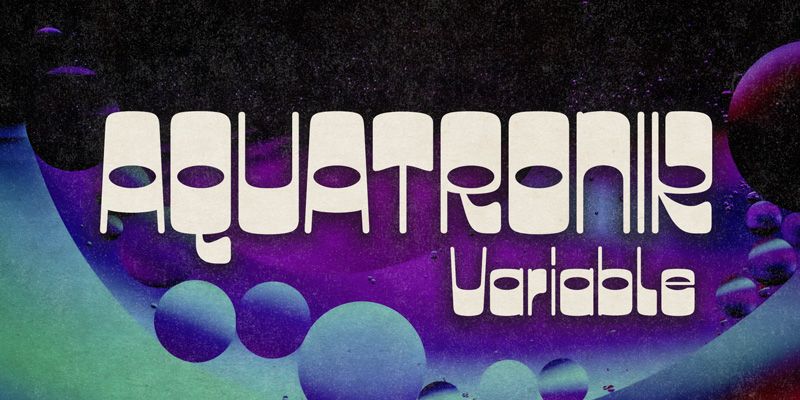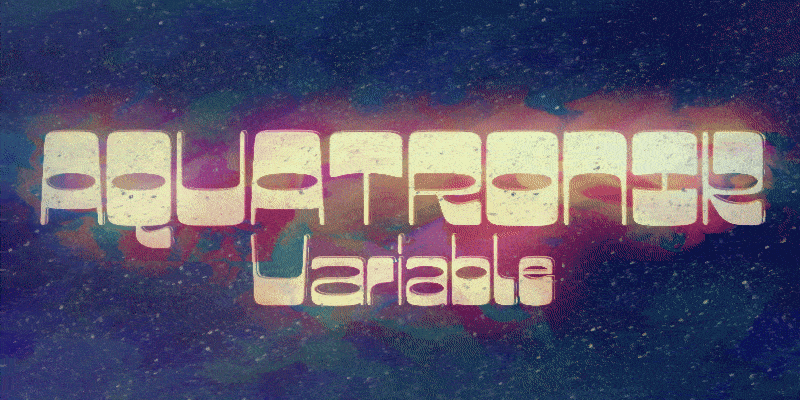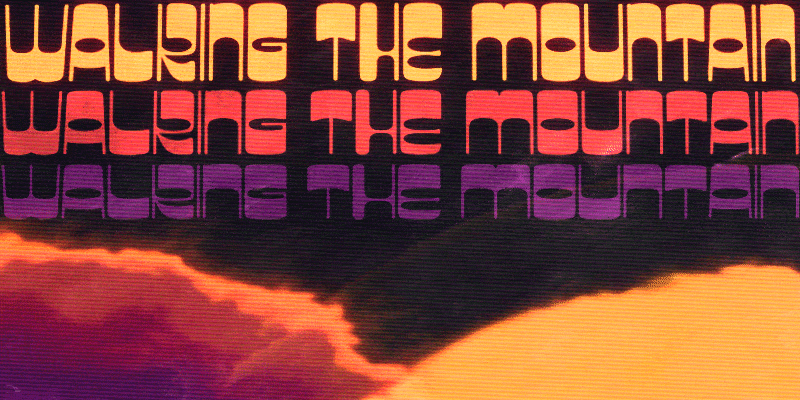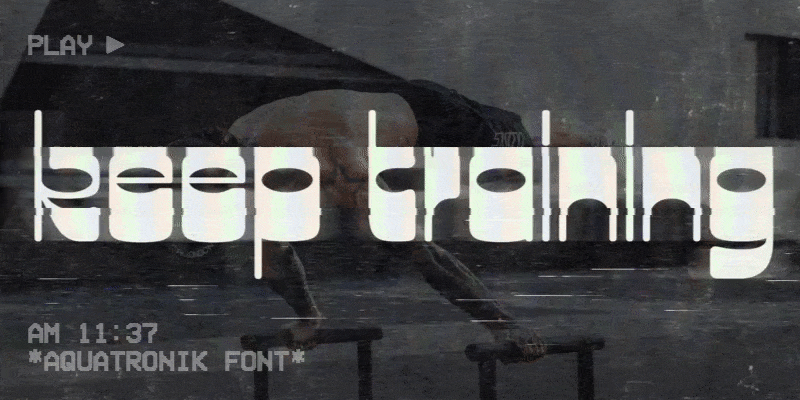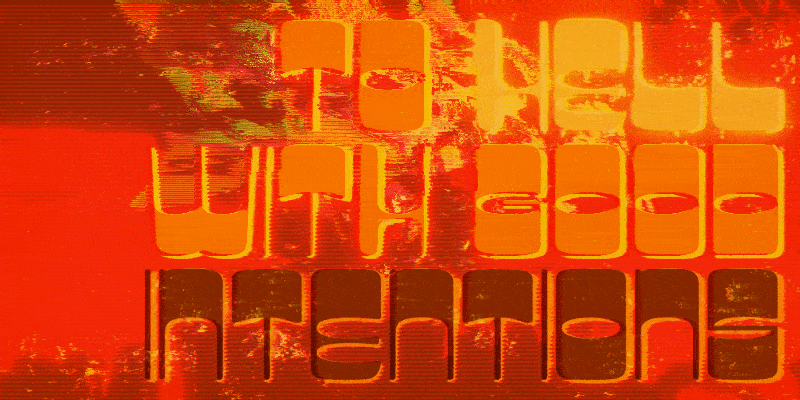
Aquatronik Variable is a decorative display face with a chic retro-futuristic flair. It has alternate glyphs for some letters and numerals and an extended character set, speaking more than 200 languages. Expand its versatility even further by playing with the width! Aquatronik is an excellent pick for eye-catching designs, including film posters, book covers, album art, editorial spreads, apparel brands, and so much more. Have fun!